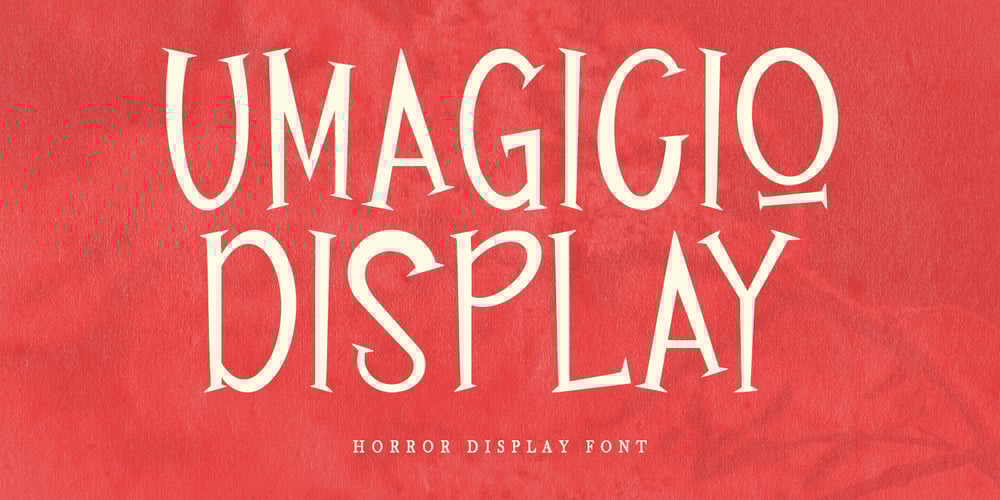
MC Umagicio Font Family was designed by Gilang Maulana and published by Maulana Creative. MC Umagicio contains 1 styles and family package options. Umagicio halloween display font. Heavy stroke, fun character with a bit of alternate. To give you an extra creative work. Umagicio halloween display font support multilingual language. This font is good for logo design, Social media, Movie Titles, Books Titles, a short text even a long text letter and good for your secondary text font with script or serif. Make a stunning work with Umagicio halloween display font. Cheers, Maulana Creative